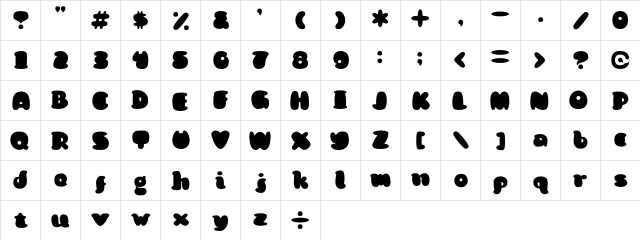
Kong Quest Regular
| Designer | Ben Dunkle |
Design Context for Kong Quest Typeface
Kong Quest is a composed and adaptable typeface that performs quietly and consistently across a wide range of design contexts.